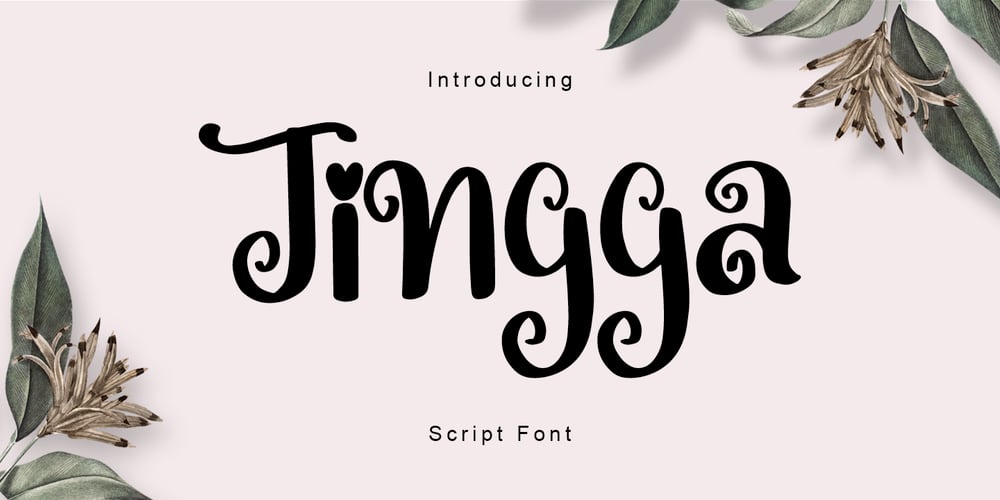
Jingga Font Family was designed by Rizal Aiyub and published by Fontysia. Jingga contains 1 styles and family package options. Jenita is a cute swirly font.This font is perfect for Logo designs, svg files, stickers, name tags, cricut projects, shirts, doormats and more!